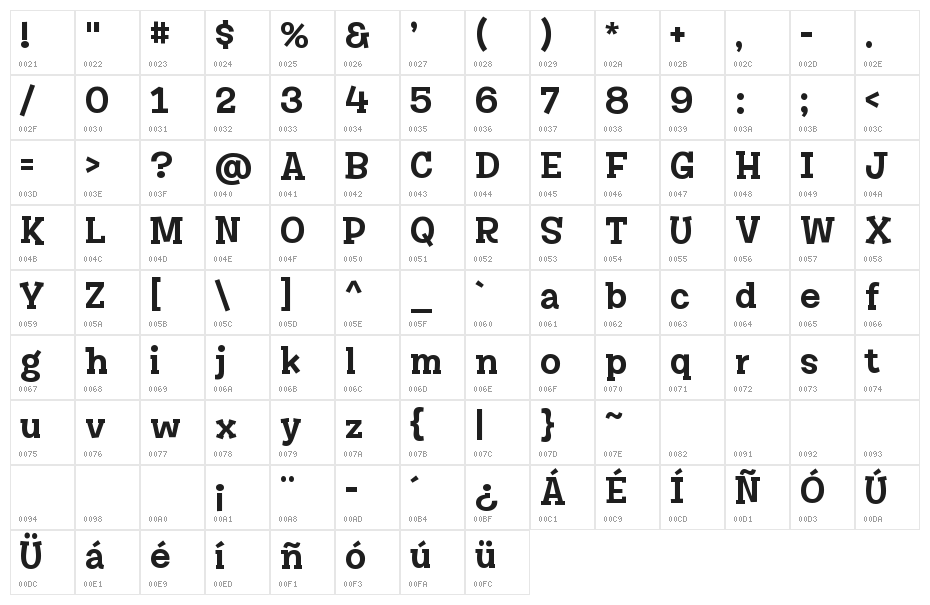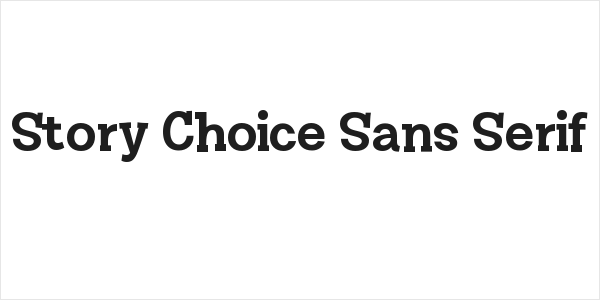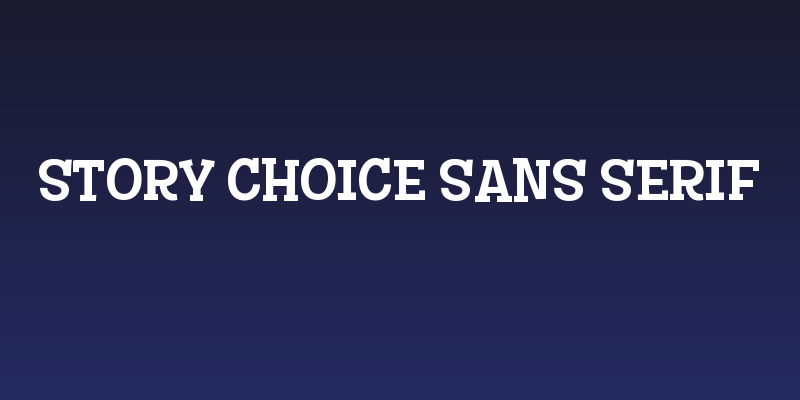
Story Choice Sans Serif Font
Story Choice Sans Serif Description
This font features a bold and robust design with a strong presence, characterized by thick strokes and a uniform weight throughout. The uppercase letters are tall and commanding, while the lowercase letters maintain a consistent height, providing a balanced and harmonious appearance. The numerals are clear and legible, making them suitable for various applications. Special characters are distinct and well-defined, ensuring clarity in any context. The overall style is modern yet timeless, making it versatile for both digital and print media.
| Proposed Projects | Ideal for headlines, posters, branding materials, and any project requiring a strong visual impact. |